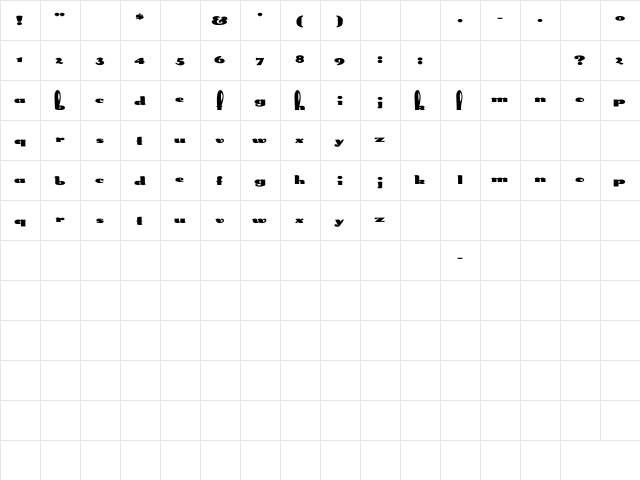
Rabbit Ex Regular Font Preview
Rabbit Ex Regular
Design Context for Rabbit Ex Typeface
Rabbit Ex is a composed and adaptable typeface that performs quietly and consistently across a wide range of design contexts.